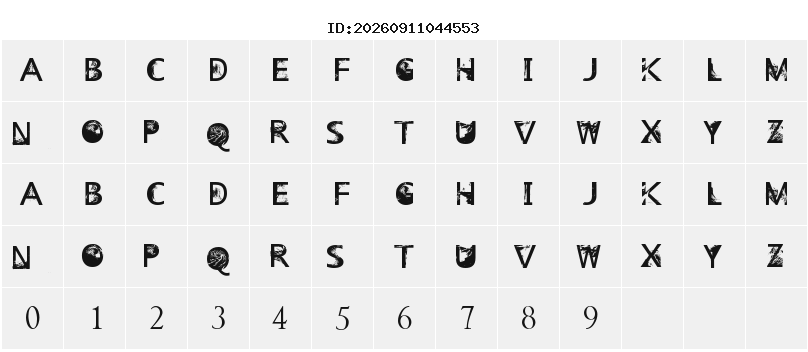
• Designer: Tom Kolodziejski
Venue_on_the_Beach.ttf is a modern, elegant sans-serif font designed for ultimate readability and visual harmony. Perfect for branding, headlines, web design, and print materials.